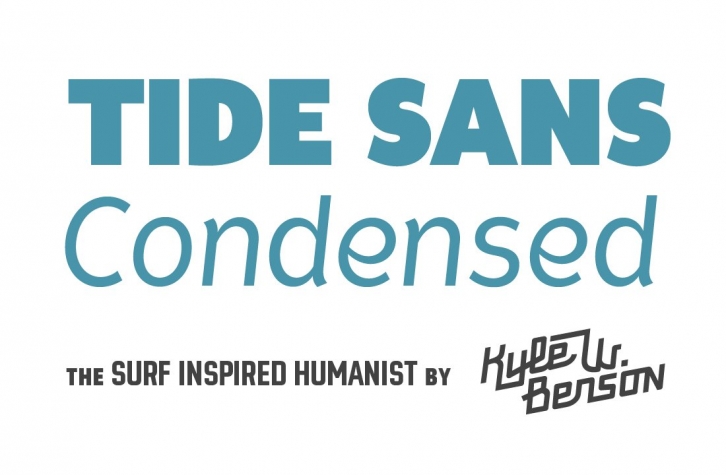
Tide Sans Condensed has a fresh, carefree, look that makes you almost forget that you’re staring at a monitor and not on the beach. When Tide Sans Condensed is not surfing, you’ll find it at community college parties, giving free henna tattoos, or tossing a Frisbee to the dachshund next door.
The Tide Sans family includes beautiful italics and an equally affable condensed set. Tide Sans does the work for you by providing a ridiculously large stylistic alternates set, fine tuned small caps, and a whole beach of alternate (amper)sands to feel between your toes.